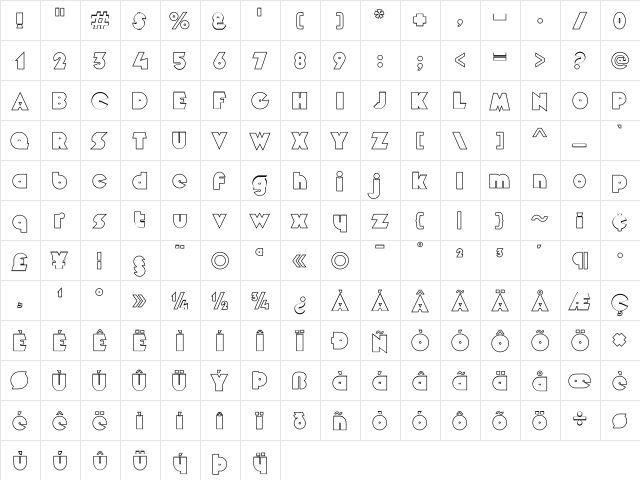
Pepperland Outline Regular
| Foundry | Zooreka Art |
| Designer | Zooreka Art |
Design Context for Pepperland Outline Typeface
Pepperland Outline brings ornamental detail and strong personality to headlines and identities, where visual impact matters more than quiet functionality.
Font Pairing: Pair with a clean neutral sans-serif for body copy to let Pepperland Outline's character lead without overwhelming the composition.
Pro Tip: Use Pepperland Outline exclusively at display sizes — it was designed to be seen, not read at length. Let a neutral companion handle body copy.